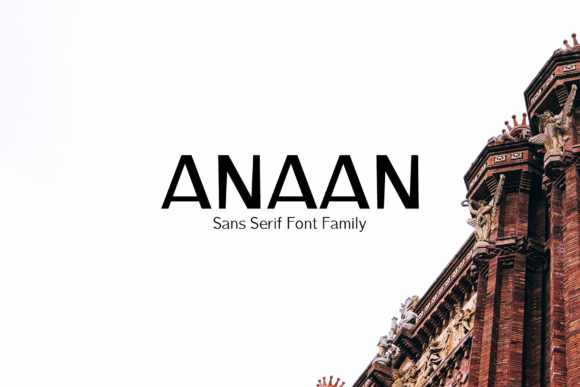
The Ultimate Font for Modern Design: Anaan Family Font
I’ll never forget the time I was working on a branding project for a trendy new cafe, and I just couldn’t find the right font to capture their modern and sleek vibe. The client was specific about wanting something clean, elegant, and highly legible. That’s when I stumbled upon the Anaan Family Font, and it was love at first sight! 💕
Anaan Family Font: The Perfect Solution
Anaan is a sleek and modern sans serif font family that perfectly complements headers, headlines, social media posts, branding, banners, templates, resumes, presentations, and other projects that need neat typography. Its clean lines, elegant curves, and versatile style make it an excellent choice for designers, crafters, and creative hobbyists alike.
• ✅ Extremely versatile and adaptable to various design projects
• ✅ Clean and modern aesthetic that screams professionalism
• ✅ Supports multiple languages and features OpenType capabilities
• ⚠️ Some users might find the font too minimalist or lacking in personality
• ⚠️ Limited availability of stylistic alternates and glyphs compared to other font families
4. Take advantage of OpenType features, such as ligatures and stylistic alternates, to add more personality to your text.
Anaan Family Font was created with the goal of providing a clean, modern, and highly legible sans serif font for designers and non-designers alike. Inspired by the latest design trends and typography innovations, the font’s designer aimed to create a versatile and adaptable font family that could be used in a wide range of projects.
Q: What makes Anaan Family Font unique?
A: Anaan Family Font stands out for its sleek and modern aesthetic, high legibility, and versatility across various design projects.
Q: Does Anaan Family Font support OpenType features?
A: Yes, Anaan Family Font features OpenType capabilities, including ligatures and stylistic alternates.